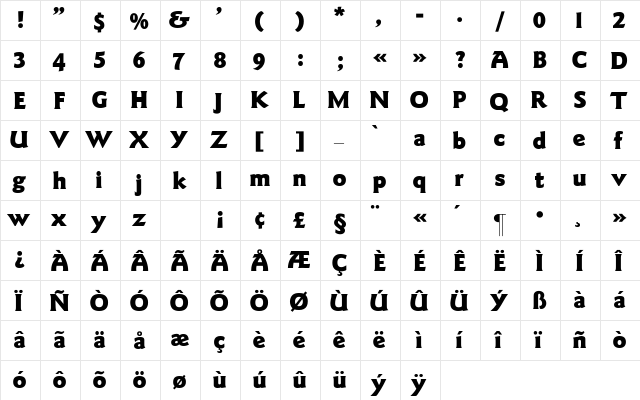
Goudy_Black Regular
Design Context for Goudy_Black Typeface
Goudy_Black offers clean, dependable letterforms without strong stylistic allegiance, making it a practical choice for designers who need flexibility.
Pro Tip: Use Goudy_Black in both headline and body roles to test its range before committing to a single application.